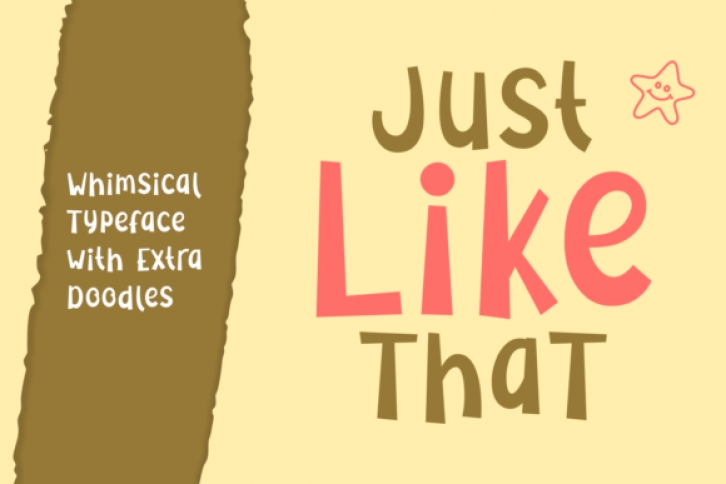
The Just Like That is an amazing script typeface. It has a whimsical touch and includes fun Easter doodles which can be used to add a fun feel to your designs.